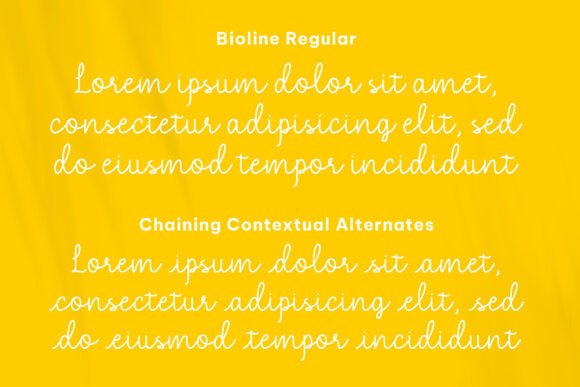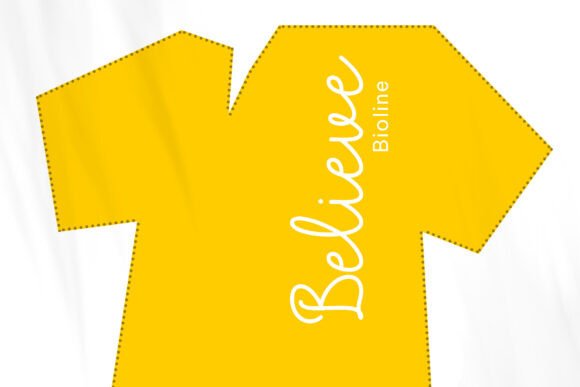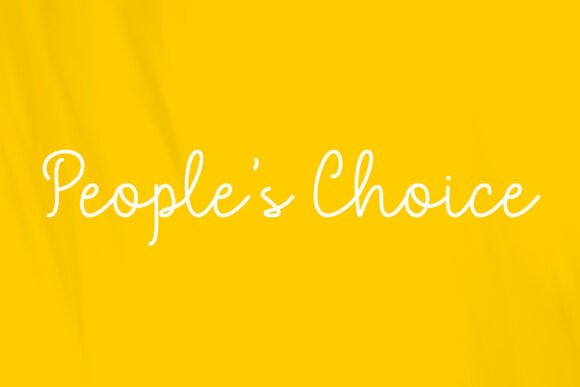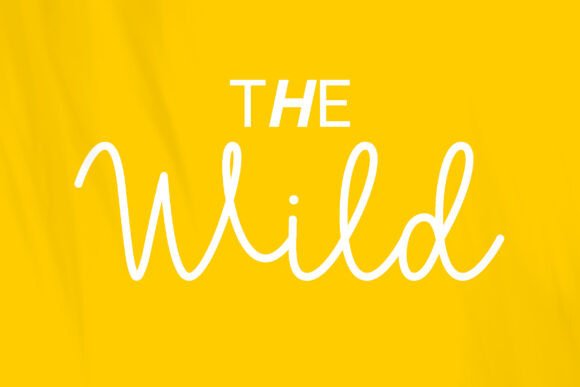
Introducing Bioline Font: Elevate Your Designs with Elegance and Sophistication
In the world of typography, a font can make or break a design. For crafters, digital designers, and creatives alike, finding the perfect font can be a daunting task. However, if you’re looking for a beauty line script font that exudes elegance and sophistication, look no further than Bioline Font. This stunning font is meticulously crafted with intricate details that will elevate your designs to new heights.
What is Bioline Font?
Bioline is a beauty line script font that boasts a unique and refined aesthetic. Its neat and highly detailed design makes it an excellent addition to any font library. Whether you’re working on a crafting project, digital design, presentation, or greeting card, Bioline Font is the perfect choice. Its versatility and flexibility make it an ideal font for a wide range of applications.
Key Features of Bioline Font
- Beauty Line Script Font: Bioline Font is a script font that features a beauty line style, perfect for creating elegant and sophisticated designs.
- Highly Detailed: This font is meticulously crafted with intricate details that will add a touch of refinement to your designs.
- Versatile: Bioline Font is perfect for a wide range of applications, including crafting, digital designing, presentations, and greeting card making.
- Elegant and Sophisticated: This font exudes elegance and sophistication, making it ideal for designs that require a touch of refinement.
Why Choose Bioline Font?
With so many fonts available, why choose Bioline Font? Here are just a few reasons why this font stands out from the rest:
- Enhance Your Designs: Bioline Font has the potential to enhance any creation, adding a touch of elegance and sophistication that will set your designs apart.
- Easy to Read: This font is highly legible, making it perfect for designs that require a clear and concise message.
- Unique and Refined: Bioline Font features a unique and refined aesthetic that will add a touch of personality to your designs.
How to Use Bioline Font
Bioline Font is easy to use and can be applied to a wide range of design projects. Here are just a few ideas to get you started:
- Crafting: Use Bioline Font to add a touch of elegance to your crafting projects, such as handmade cards, scrapbooking, and DIY decorations.
- Digital Designing: This font is perfect for digital designers who want to create stunning graphics, logos, and branding materials.
- Presentations: Add a touch of sophistication to your presentations with Bioline Font, making them more engaging and memorable.
- Greeting Card Making: Create beautiful and elegant greeting cards with Bioline Font, perfect for special occasions and events.
In conclusion, Bioline Font is a stunning beauty line script font that is sure to elevate your designs to new heights. Its elegant and sophisticated aesthetic, highly detailed design, and versatility make it an excellent addition to any font library. Whether you’re a crafter, digital designer, or creative, Bioline Font is the perfect choice for any design project. So why wait? Download Bioline Font today and experience the power of elegant typography.